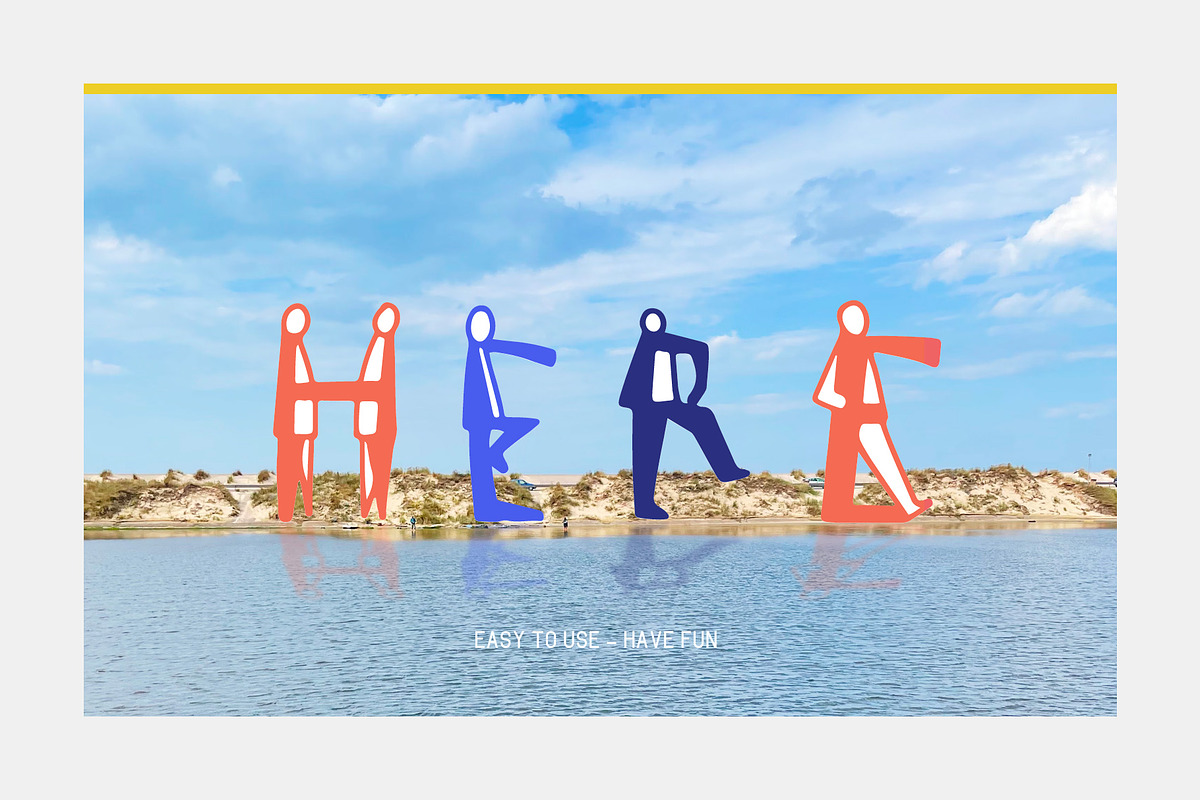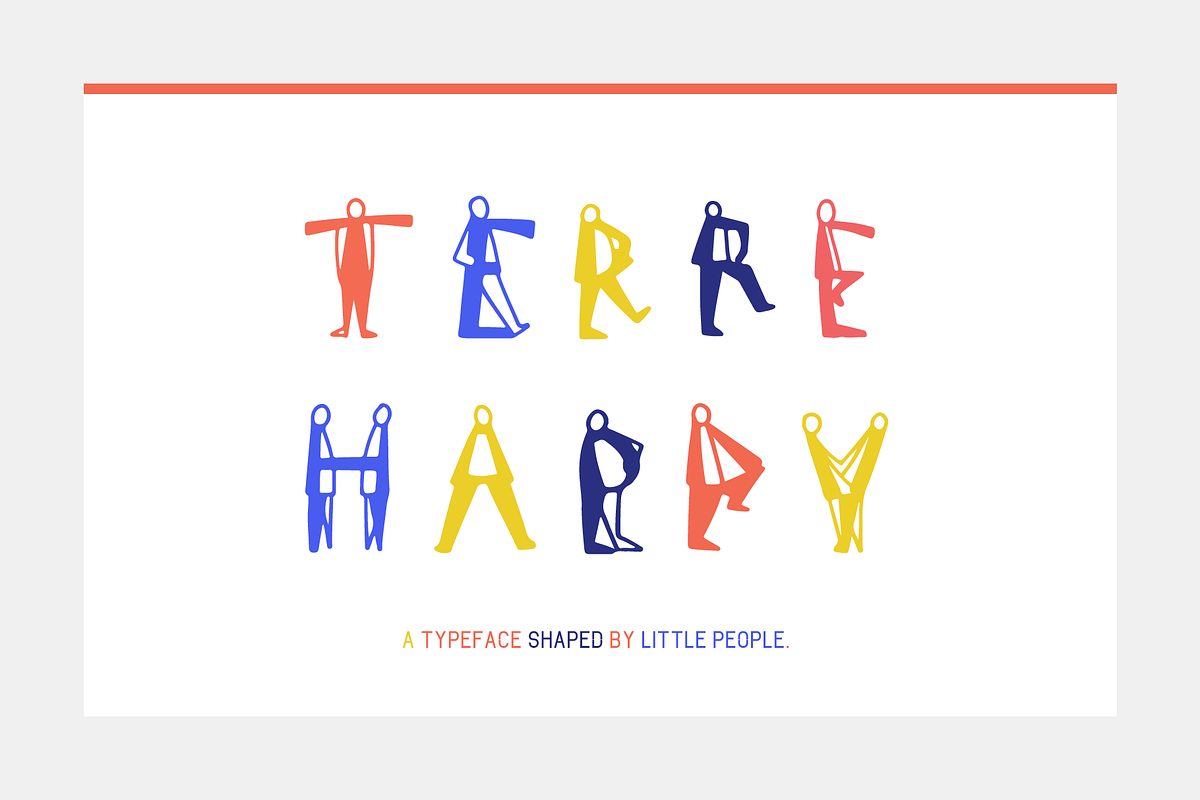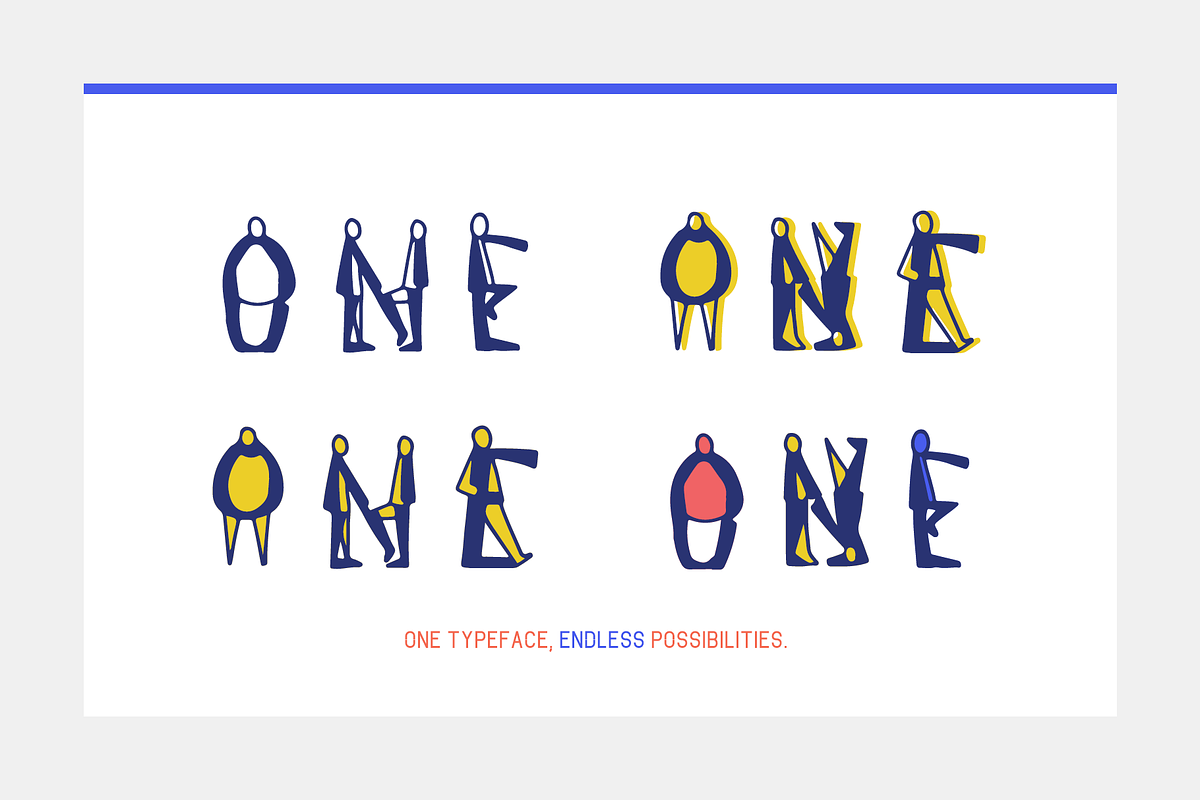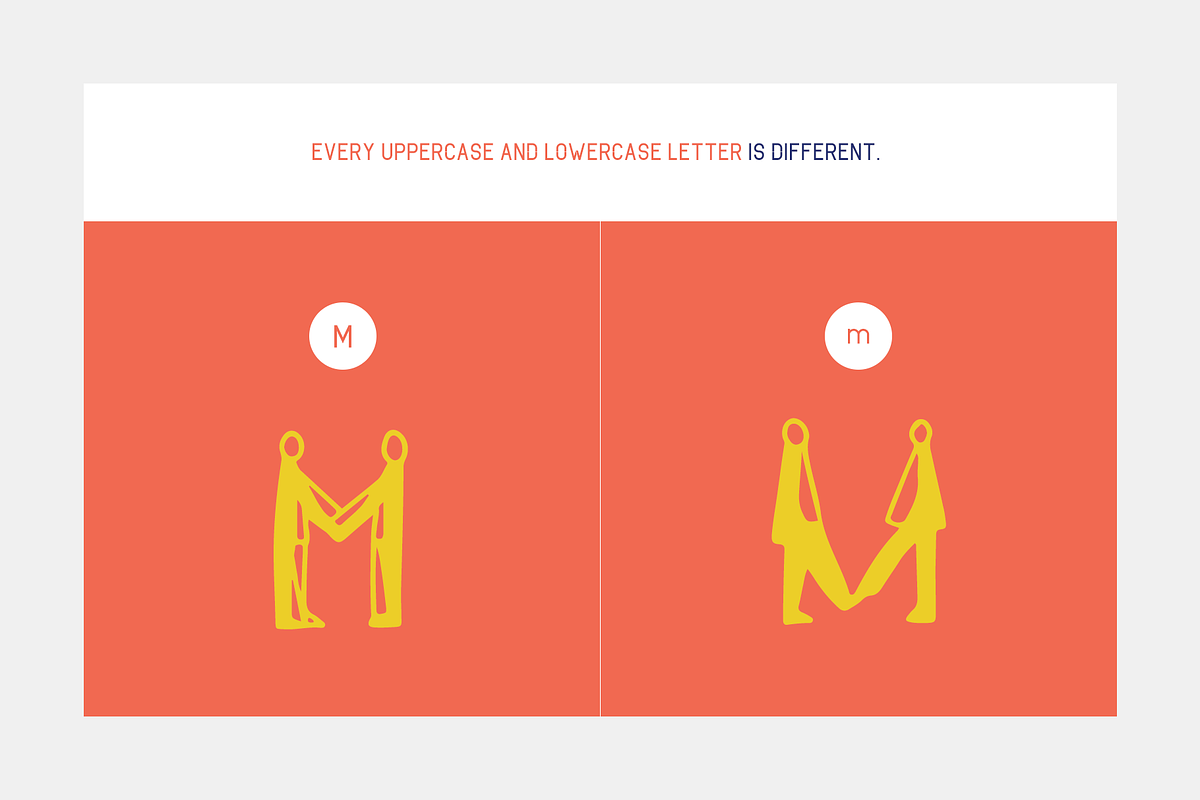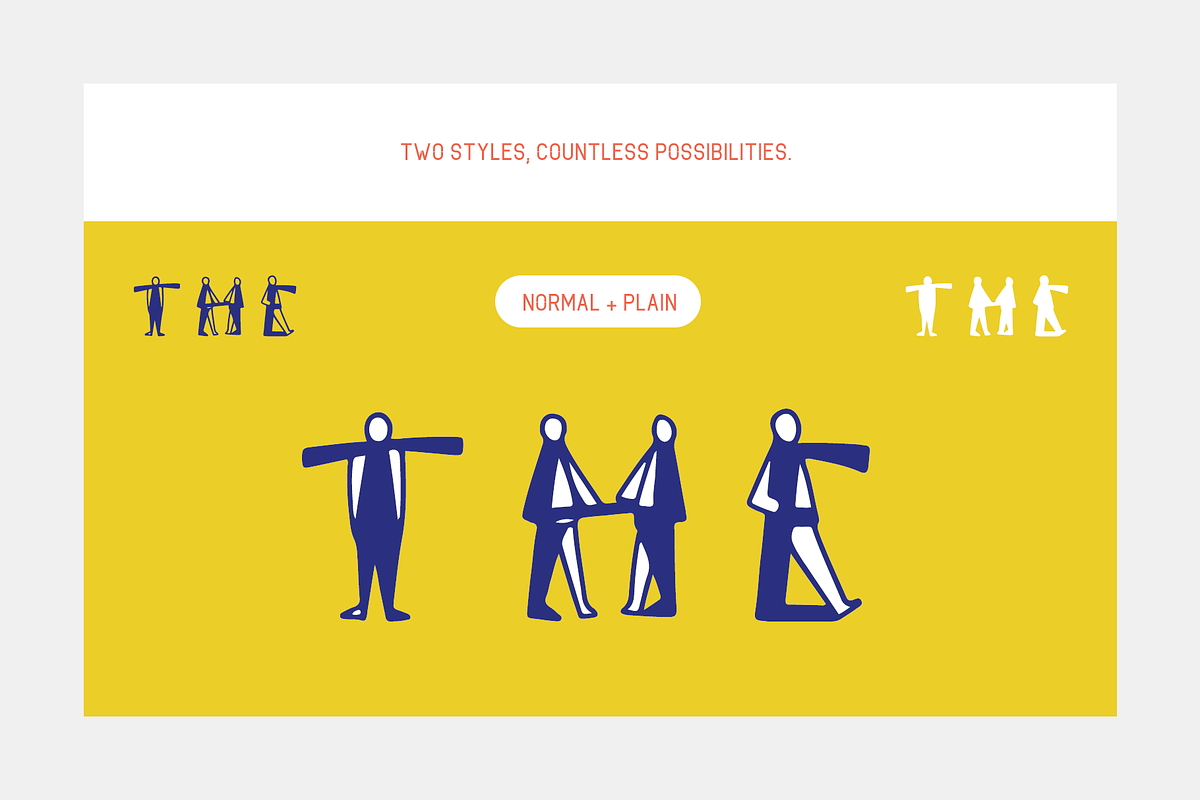
Terre Happy
Meet Terre Happy
What if every letter had a life of its own?
Terre Happy is a playful typeface where every character is transformed into a tiny hand-drawn person. Each one has its own personality, pose, and expression, while remaining clear and easy to read.
I wanted to create a font that makes people smile before they've even finished reading the first word.
Perfect for posters, packaging, branding, greeting cards, children's projects, social media, or any design that could use a little more humanity and joy.
Designed by hand, one character at a time
Every character has been individually illustrated from scratch. The challenge was to balance personality with legibility, creating little people that naturally become letters.
No copied shapes. No shortcuts. Just dozens of tiny characters carefully crafted to work together as a complete typeface.
A font that keeps growing
Terre Happy isn't a finished project—it's an evolving one.
Because I believe a typeface should grow with the people who use it.